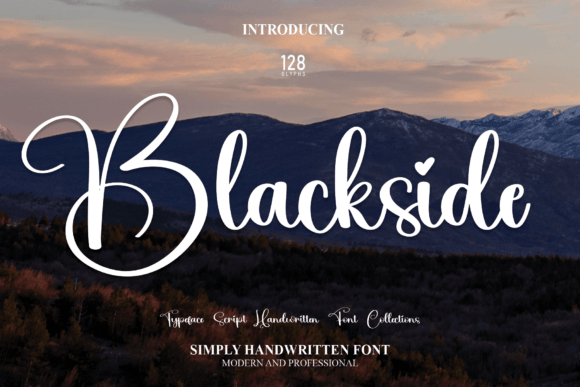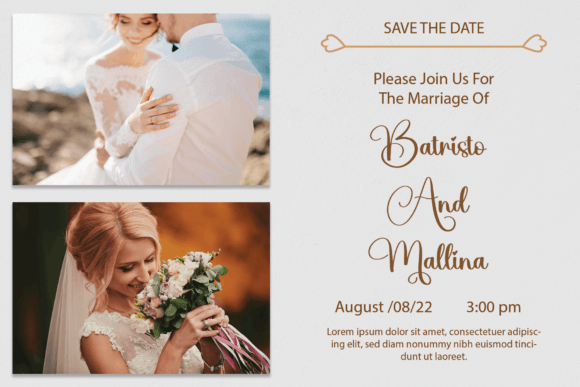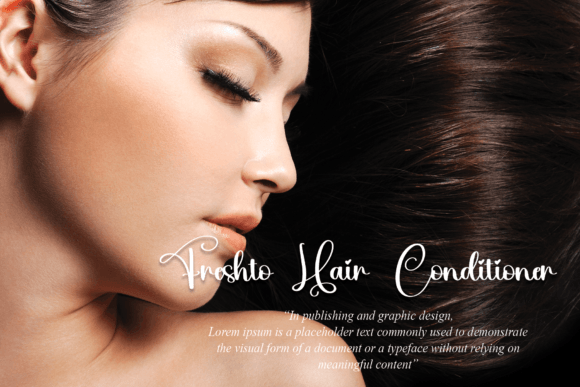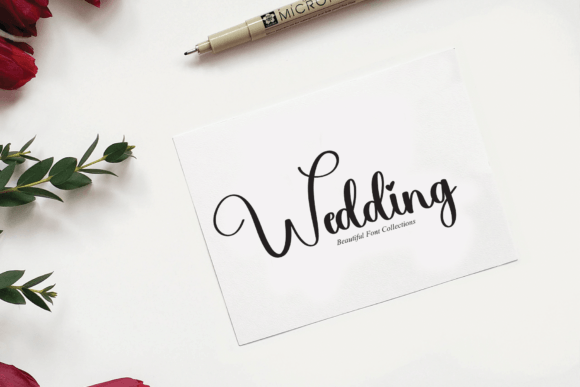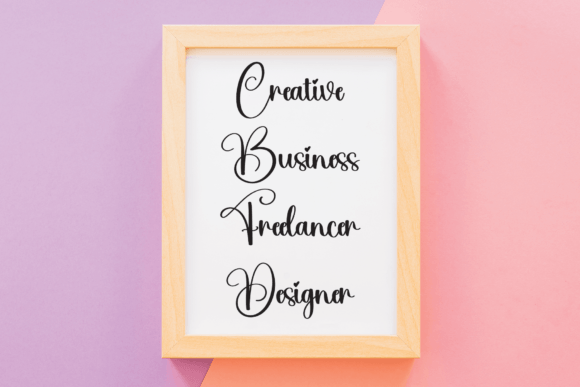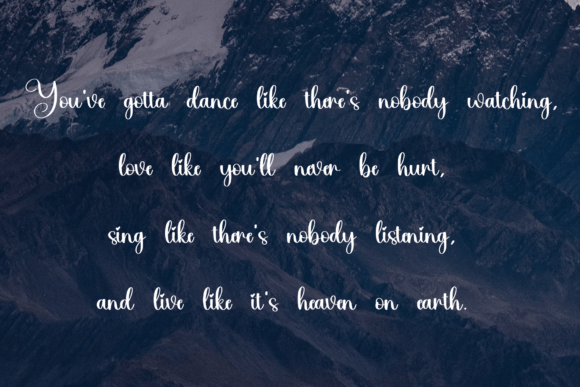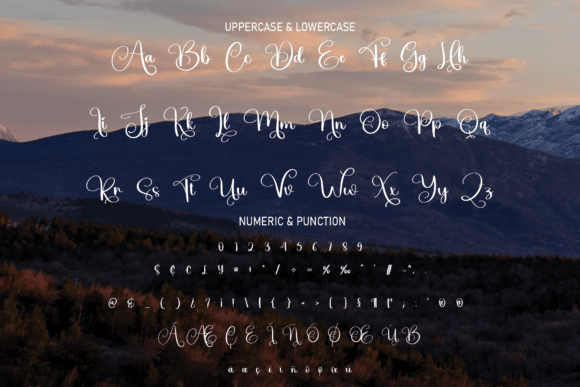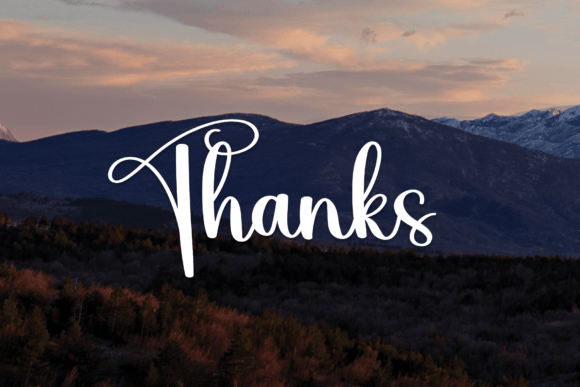
Blackside Font
About Blackside Font
Blackside’s newest style of letters offers a versatile and contemporary design that is perfectly suited for an array of creative endeavors. With applications ranging from wall displays to wedding invitations, social media post logos to advertisements, product packaging to product designs, labels to photography, watermarks to invitations, and stationery, these letters embody a handwritten taste that can elevate any project.
Imagine creating a captivating wall display that effortlessly draws attention with the unique and stylish flair of Blackside’s letters. The contemporary design adds a touch of sophistication, making it an ideal choice for modern aesthetics. For special occasions like weddings, these letters enhance the elegance of invitations, providing a personalized and visually appealing touch that sets the tone for the event.
In the realm of digital content, whether for social media post logos or advertisements, Blackside’s letters offer a fresh and modern look. Their adaptability ensures that your brand or message is conveyed with a distinctive and eye-catching appeal. When it comes to product packaging and designs, these letters can transform ordinary labels into works of art, contributing to a cohesive and visually pleasing presentation.
Photography projects benefit from the unique aesthetic of Blackside’s letters, providing watermarks that blend seamlessly with the visual narrative. The handwritten taste adds an authentic and personalized touch to images, creating a cohesive and professional look. The versatility extends to event invitations, where the letters bring an extra layer of charm and individuality, setting the stage for memorable gatherings.
Stationery, too, receives a makeover with Blackside’s letters, making it easy to create beautifully crafted and personalized letterheads, notecards, and more. The handwritten style adds character to stationery, making each piece a unique representation of your brand or personal expression.
In essence, Blackside’s latest style letters are more than just characters on a page; they are a tool for creative expression. Whether you’re embarking on a large-scale advertising campaign or a small, intimate project, these letters infuse a handwritten taste that stands out, leaving a lasting impression on anyone who encounters your work. With Blackside’s letters, your projects are not just seen; they are experienced with a touch of elegance and style.